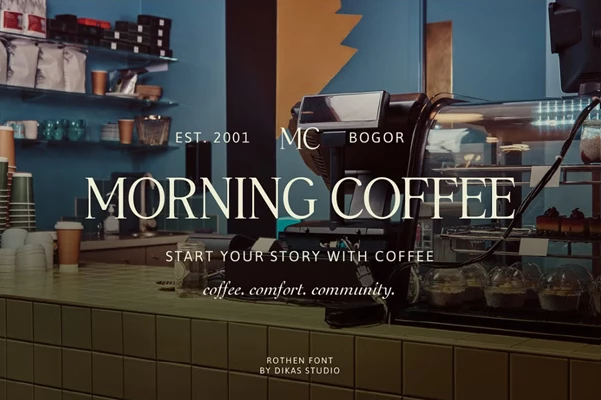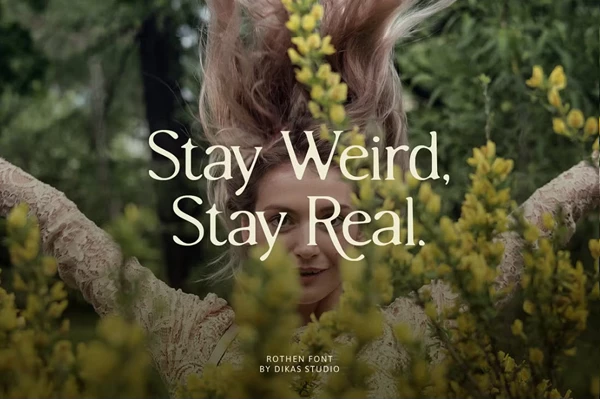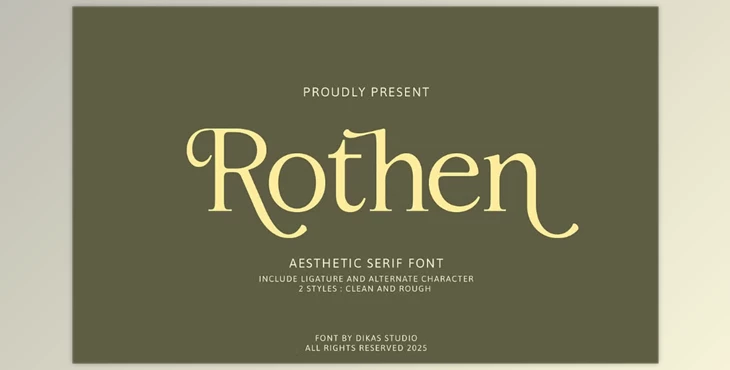
Rothen Aesthetic Serif Font:
The Rothen font is elegant with an artistic flair due to its serif style. Like most serif fonts, Rothen is a graceful typeface that is beautifully designed with care to detail, featuring beautiful alternate characters and ligatures, making the font perfect for projects that need expressive and luxurious typography. Rothen’s versatility caters to diverse creative demands. It offers two styles: A clean version that has a polished, sleek look and a rough/hand-drawn version that has an organic, handcrafted look.
All fashion magazines, brand identities of high-end companies, wedding invitation cards, and even classy boxes can be elegantly designed with Rothen as it adapts to various design needs, making sure they all possess individuality and elegance.
Embrace the elegance and flexibility of Rothen to elevate your design projects and take them to another level. For designers wanting to beautify their designs, Rothen is perfect because the font is lovely and versatile. In addition, it comes in various formats, such as .otf, .ttf, .woff, and .woff2, ensuring accessibility for different platforms and applications.